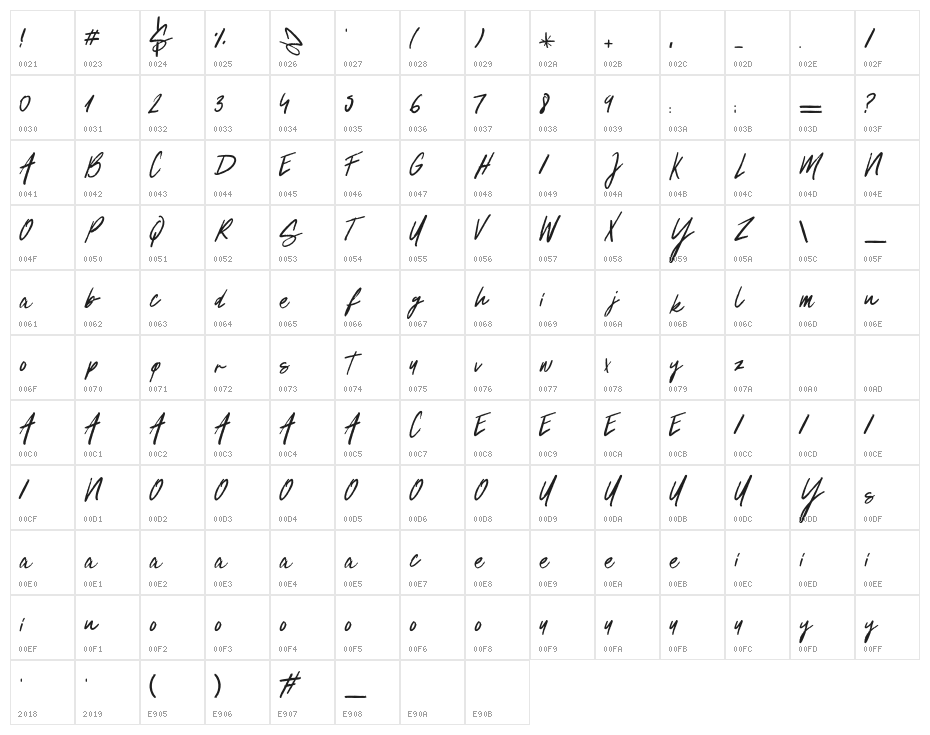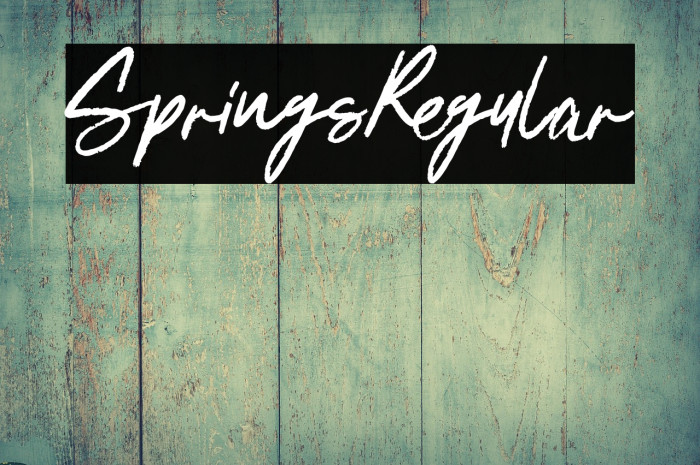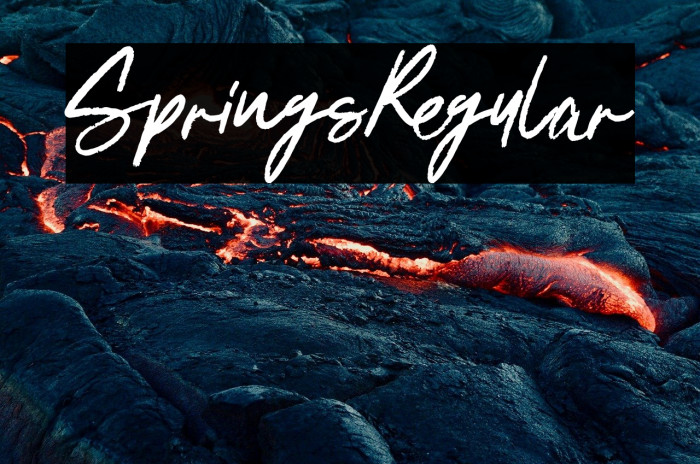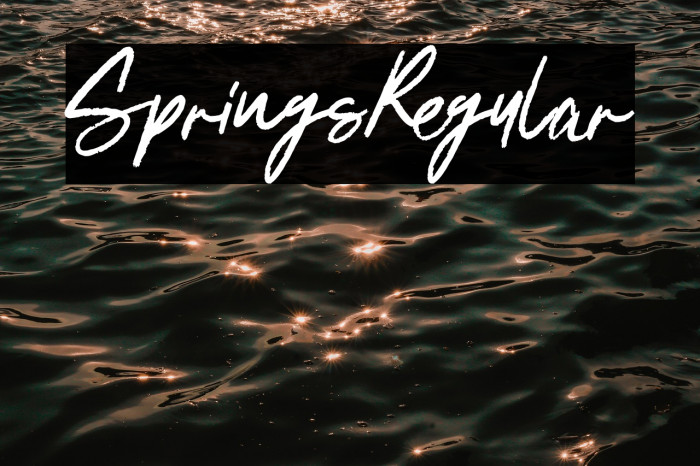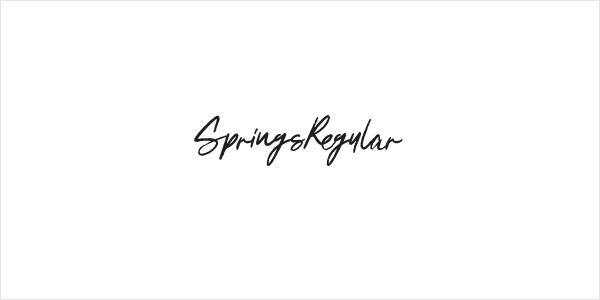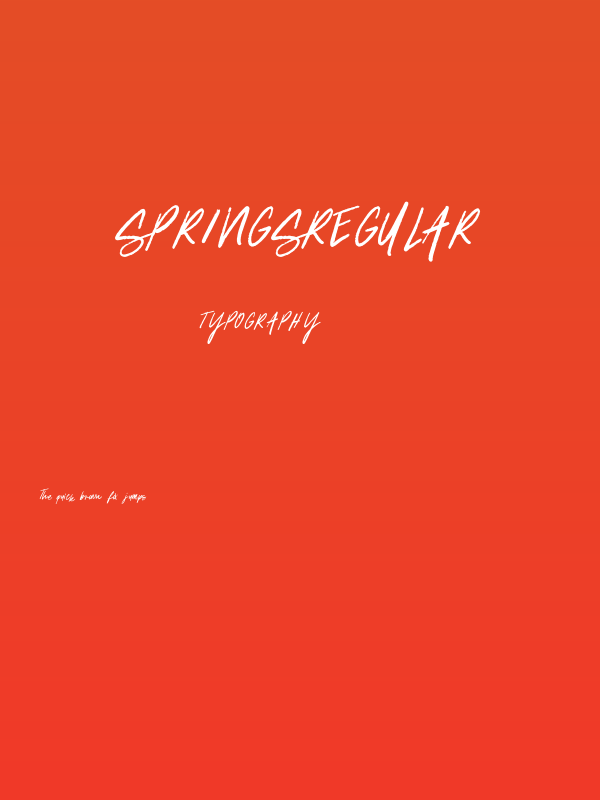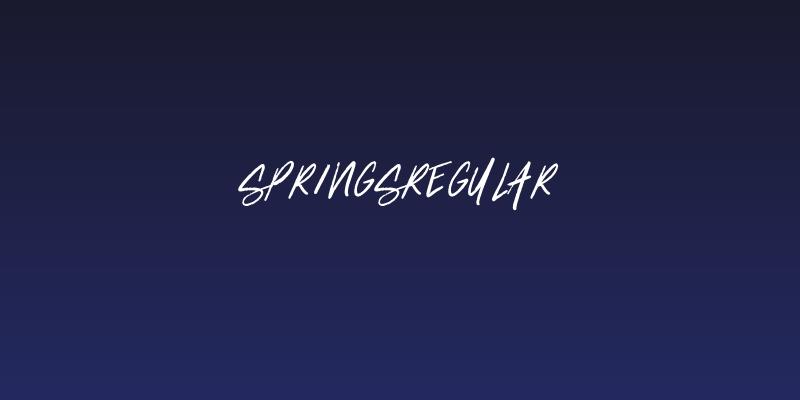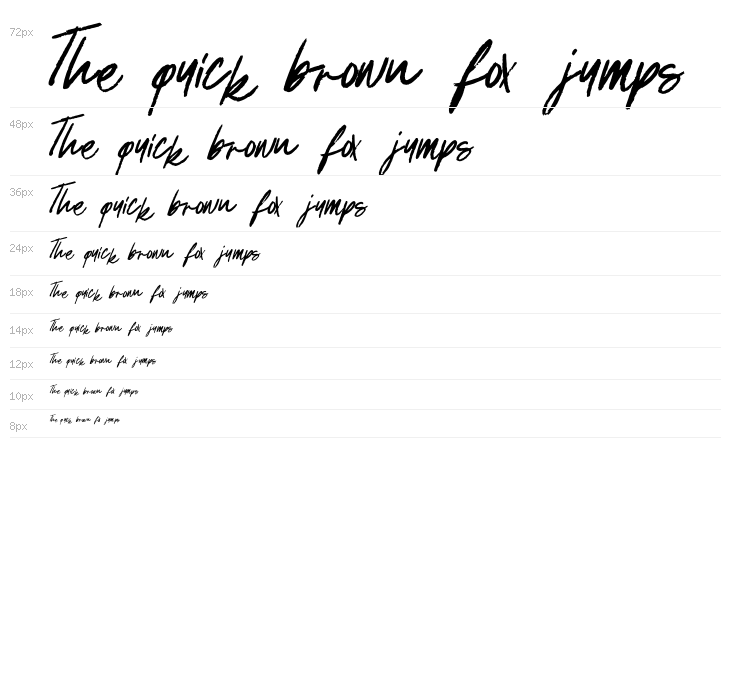
SpringsRegular Font
SpringsRegular Description
This font exudes a dynamic and energetic feel with its handwritten style, characterized by fluid and slightly irregular strokes that mimic natural handwriting. The letters are slightly slanted, adding to the casual and informal appearance. The uppercase and lowercase letters maintain a consistent style, with a playful yet elegant touch. The numbers and special characters follow the same aesthetic, ensuring uniformity across all glyphs. This font is perfect for projects that require a personal and approachable touch, such as invitations, greeting cards, or creative branding.
| Overall Style | Casual, Elegant |
| Use Case | Headlines, Logos, Invitations |
| Proposed Projects | Ideal for invitations, greeting cards, creative branding, and personal projects. |